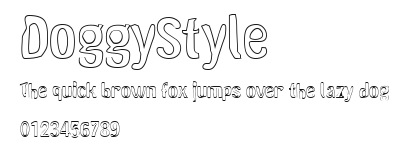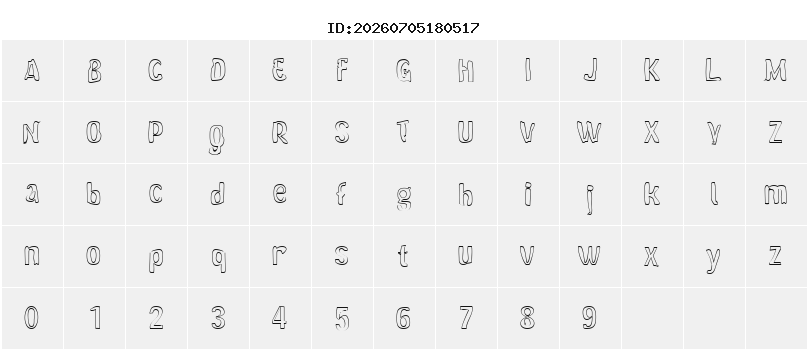
• Font Name: DoggyStyle
• Font Style: BarkBark
• Font ID: DoggyStyle BarkBark
• Full Font Name: DoggyStyle BarkBark
• Version: 97-04-10
• PostScript Name: DoggyStyle-BarkBark
• Character Count: 208
About DoggyStyle.ttf
DoggyStyle.ttf is a modern, elegant sans-serif font designed for ultimate readability and visual harmony. Perfect for branding, headlines, web design, and print materials.